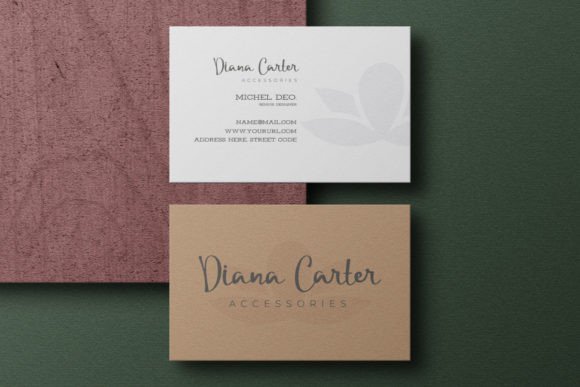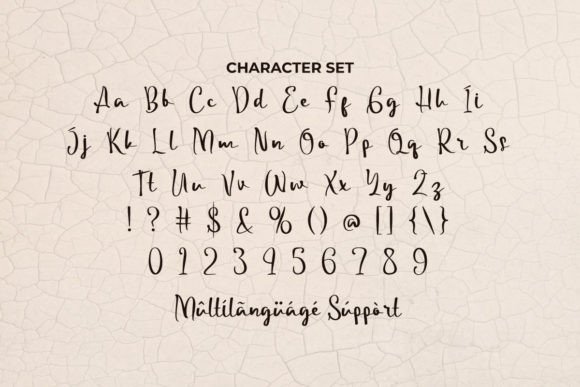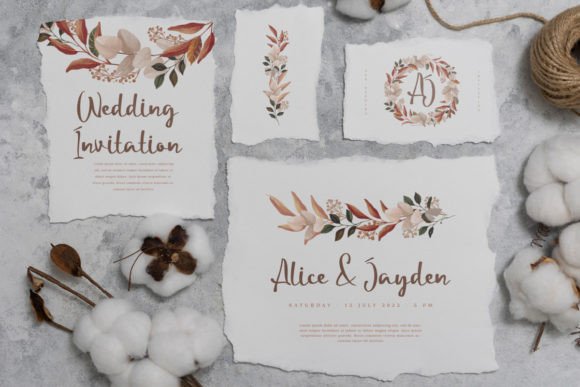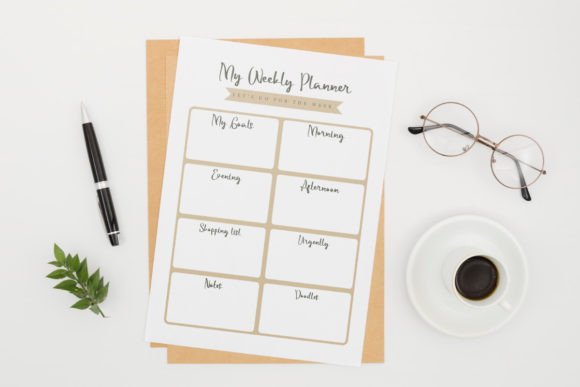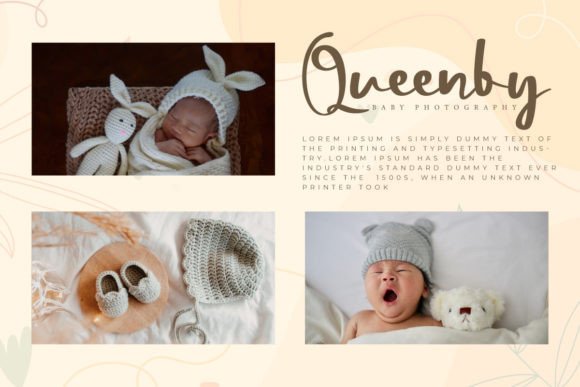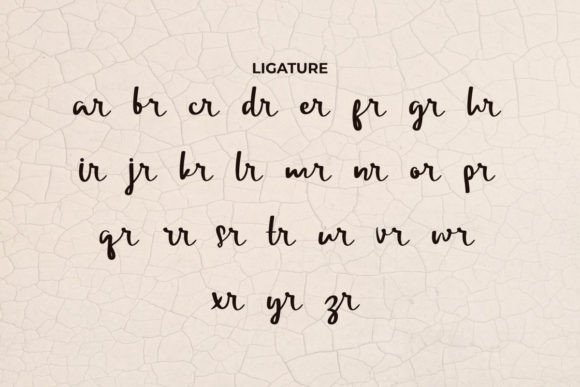
Introduction to Smooth Perfectly Font
Smooth Perfectly Font is a beautiful script font with handwriting style.
The lines in this font flow smoothly and beautifully, giving it an eye-catching look Use this font to enhance your projects, such as business card, flyer, label, invitation, packaging design, quotes, stationery, title, website, etc.
Smooth Perfectly Font offers exceptional quality and versatility, making it a valuable addition to your design toolkit. Whether you’re creating for personal projects or commercial use, Smooth Perfectly Font delivers professional results.